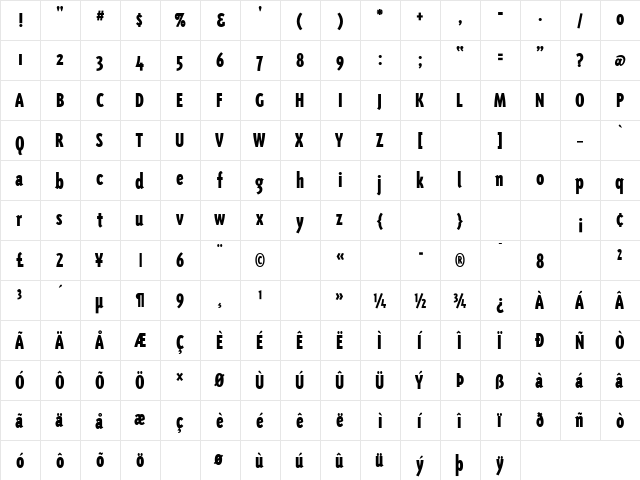
TriplexCond-Black Black
Design Context for TriplexCond-Black Typeface
TriplexCond-Black is a composed and adaptable typeface that performs quietly and consistently across a wide range of design contexts. Its narrow stance lets it pack a punch even in space-constrained designs.